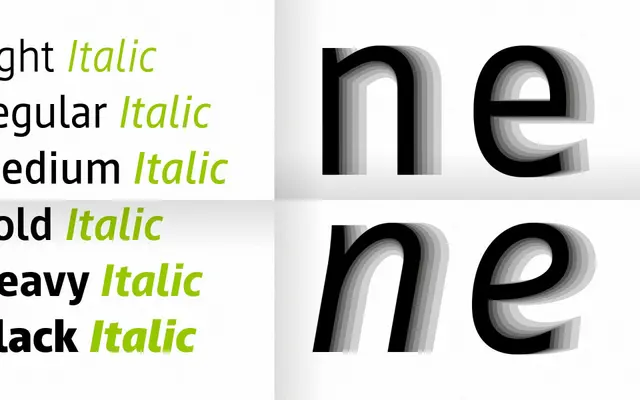
Cast
Serpentype · Dominique Kerber · 2011
A twelve-weight sans-serif by Dominique Kerber, developed from a 2007 typedesign study at ZHdK Zurich and extended with true italics in 2018.
Originally begun as a student project at the Zurich University of the Arts in 2007, Cast was released as a full family in 2011 with six upright weights from Light to Black, each with matching italics added in 2018. Open apertures, manually kerned spacing and 481 glyphs per style covering Latin Extended-A make it a considered choice for text, branding and wayfinding. Its design concept directly addresses the tension between small-text legibility and display performance, offering considered answers through its curve work and proportions.
Cast is a sans-serif with open apertures, balanced proportions and a slightly technical character, placing it in the humanist sans tradition with attention to legibility at small sizes and display use alike.